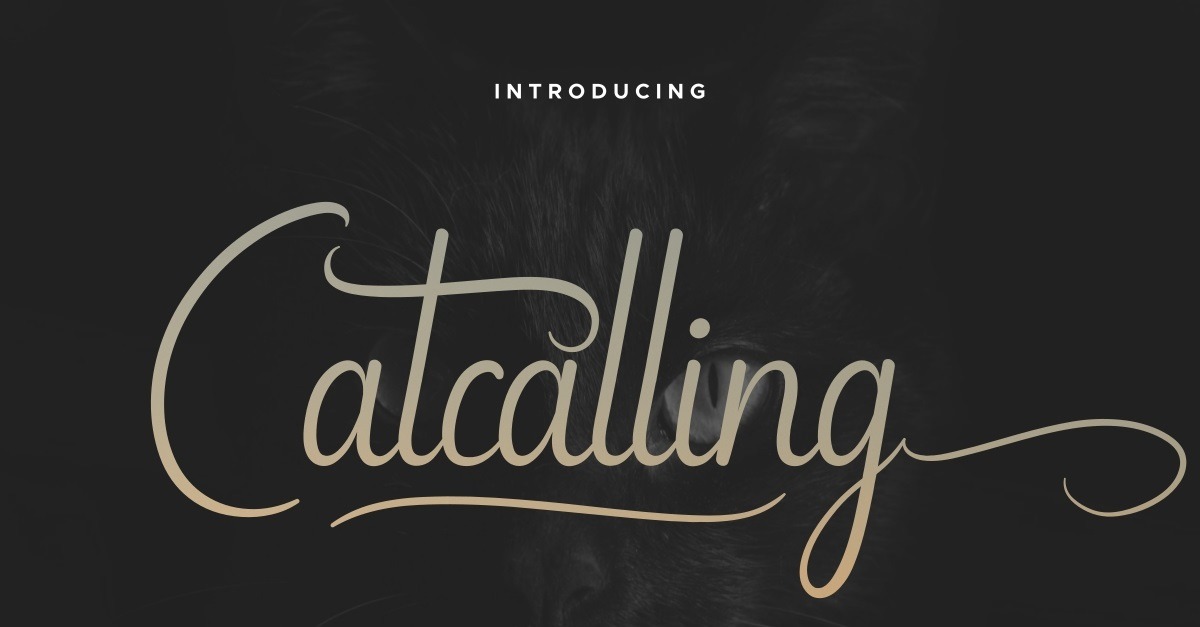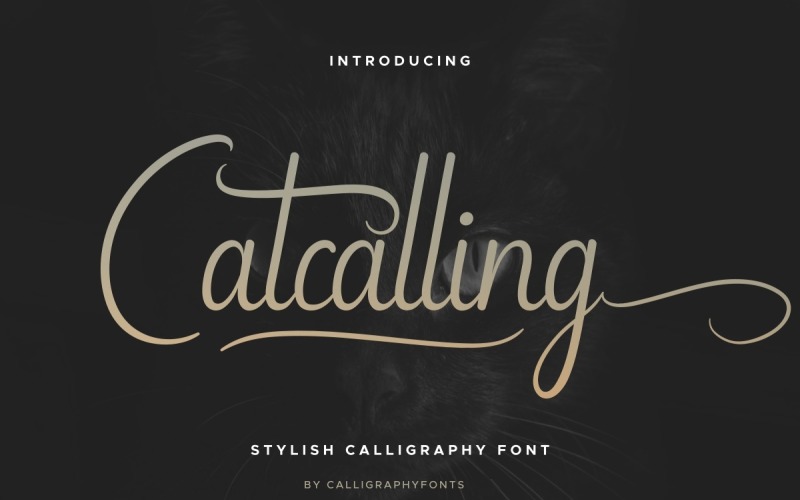
Catcalling Script Font
Catcalling Font is a classic Calligraphy script font. The style of this font are elegant, luxury, glamour, modern and sophisticated calligraphy handwriting font. Catcalling Font will be great for any projects (with extended license) including : branding, logo, stationery, business card, signage, flyer, brochure etc. Almost all industries will be match for this typeface: wedding, events, restaurant, architect, law firm, florist, gardening, makeup artist, travel, hotel, musician etc